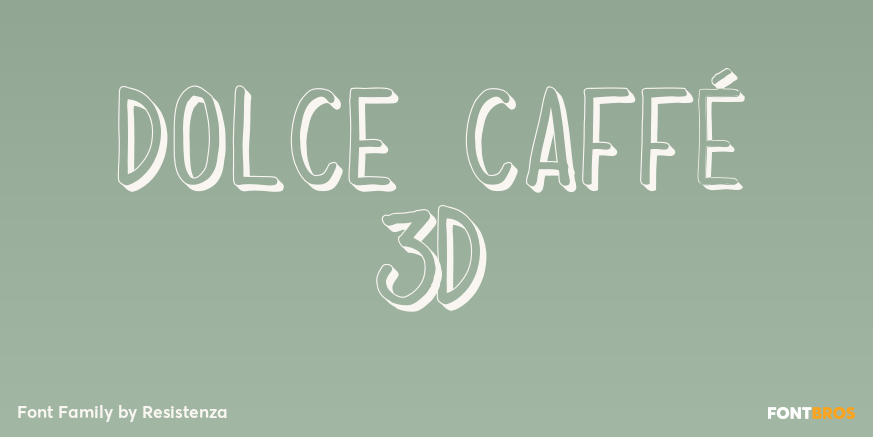
Dolce Caffé 3d
About Dolce Caffé 3d
3D, 3D Rough and Shadow versions of Dolce Caffe, a handwritten all uppercase font inspired be a Berliner menu. Very legible faces, high in style and carefully constructed all-uppercase letters.